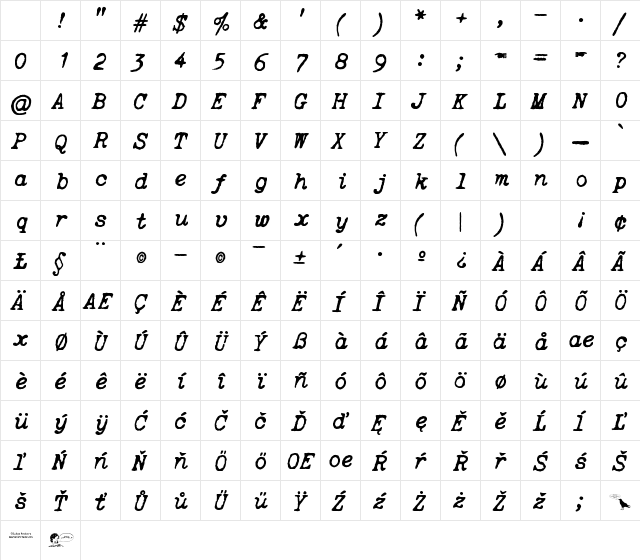
Complete Oceanside Typewriter Normal glyph index. Displaying only characters natively supported by Oceanside Typewriter Normal font.
Oceanside Typewriter uses fixed-width spacing throughout, giving it the structured, systematic character associated with coding environments and technical documentation.